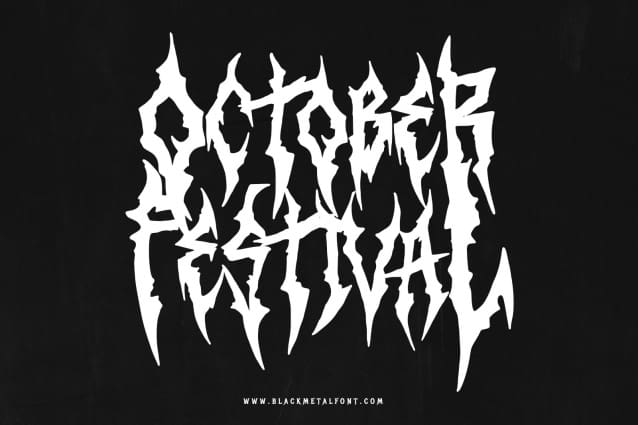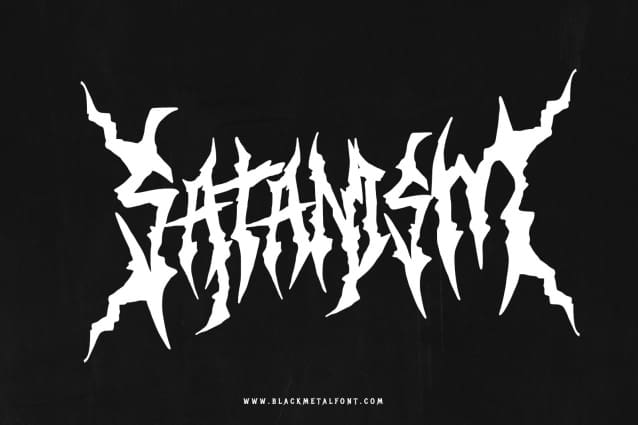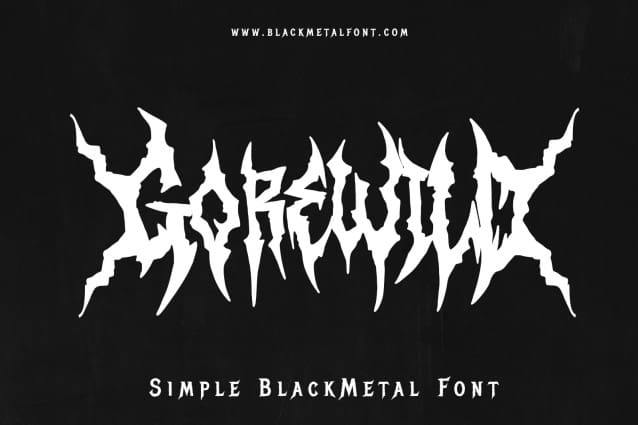
Gorewild Black Metal Font
Gorewild Black Metal Font a meticulously crafted black metal font. Designed for versatility and ease of use, it is perfect for creating striking logos, band merchandise, album covers, posters, and more. This user-friendly typeface allows for easy customization, enabling you to fine-tune your text effortlessly to achieve the precise look you desire.